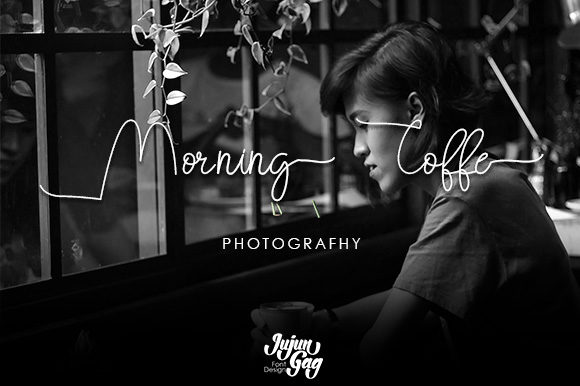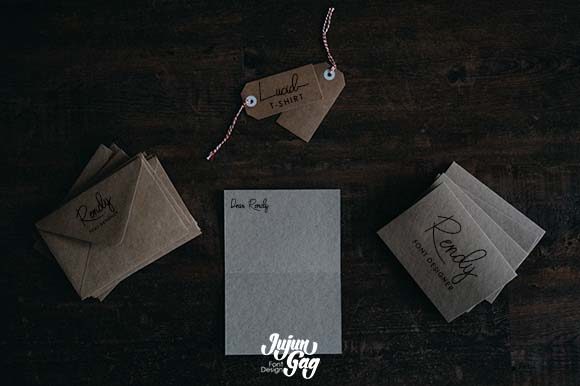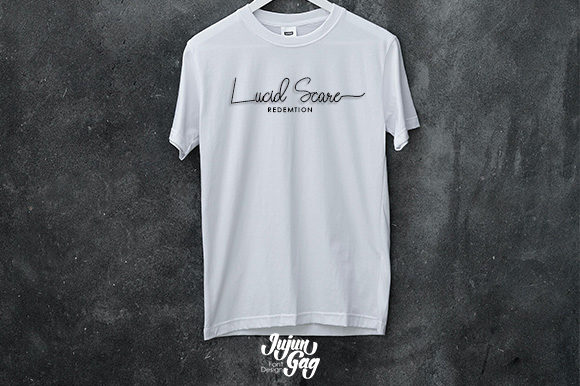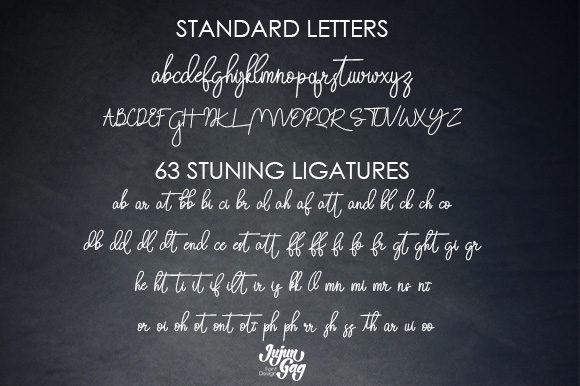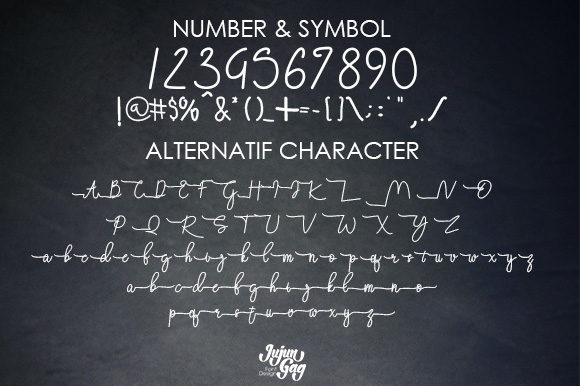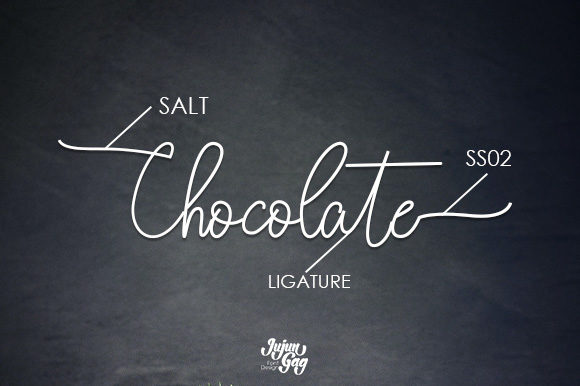
Introducing Attachment Font: Elevate Your Designs with Elegance and Charm
Are you on the hunt for a font that exudes sophistication, elegance, and a touch of classic charm? Look no further than Attachment Font. This stunning handwritten font is a stylish homage to traditional calligraphy, making it the perfect addition to your design arsenal. In this article, we’ll dive into the world of Attachment Font, exploring its features, benefits, and uses, as well as provide tips on how to make the most of this beautiful font.
The Story Behind Attachment Font
Attachment Font is a carefully crafted handwritten font that pays tribute to the timeless art of calligraphy. Its elegant strokes, flowing lines, and precise letterforms evoke a sense of refinement and luxury, making it ideal for designs that require a touch of sophistication. Whether you’re working on a branding project, wedding invitation, or social media graphics, Attachment Font is sure to make your designs stand out.
Key Features of Attachment Font
- Handwritten elegance: Attachment Font boasts a beautiful, handwritten aesthetic that’s reminiscent of classic calligraphy.
- Stylish and charming: This font is designed to add a touch of charm and personality to your designs.
- Highly versatile: Attachment Font can be used for a wide range of design projects, from logos and branding to invitations and social media graphics.
- Easy to read: Despite its elegant nature, Attachment Font remains highly legible, making it perfect for body text and headlines.
Benefits of Using Attachment Font
So, why choose Attachment Font for your next design project? Here are just a few benefits of using this stunning font:
- Add a touch of elegance: Attachment Font brings a level of sophistication and refinement to your designs, making them perfect for high-end brands, luxury products, and special occasions.
- Stand out from the crowd: With its unique, handwritten aesthetic, Attachment Font helps your designs stand out in a crowded marketplace.
- Enhance brand identity: This font can be used to create a cohesive brand identity that’s both stylish and memorable.
- Easy to pair with other fonts: Attachment Font plays nicely with a wide range of other fonts, making it easy to create visually appealing font combinations.
Using Attachment Font in Your Designs
Now that we’ve covered the features and benefits of Attachment Font, let’s explore some practical ways to use this font in your designs:
- Logos and branding: Use Attachment Font to create a stylish, elegant logo that reflects your brand’s personality.
- Wedding invitations and stationery: This font is perfect for creating beautiful, bespoke wedding invitations, save-the-dates, and other stationery.
- Social media graphics: Add a touch of elegance to your social media graphics, such as Instagram posts, Facebook headers, and Twitter graphics.
- Packaging and product design: Use Attachment Font to create eye-catching packaging and product designs that stand out on store shelves.
Tips for Getting the Most Out of Attachment Font
To make the most of Attachment Font, here are a few tips to keep in mind:
- Experiment with font sizes: Play around with different font sizes to create visual interest and hierarchy in your designs.
- Pair with complementary fonts: Try pairing Attachment Font with other fonts that complement its elegant, handwritten aesthetic.
- Use it sparingly: While Attachment Font is beautiful, it can be overwhelming if used excessively. Use it sparingly to create emphasis and add visual interest.
| Font Name | Attachment Font |
| Author | Nerdstudio |
In conclusion, Attachment Font is a stunning handwritten font that brings a touch of elegance, charm, and sophistication to any design project. With its highly versatile nature, ease of use, and beautiful aesthetic, it’s the perfect addition to any designer’s toolkit. Whether you’re working on a branding project, wedding invitation, or social media graphics, Attachment Font is sure to make your designs stand out. So why not give it a try today and see the difference it can make?